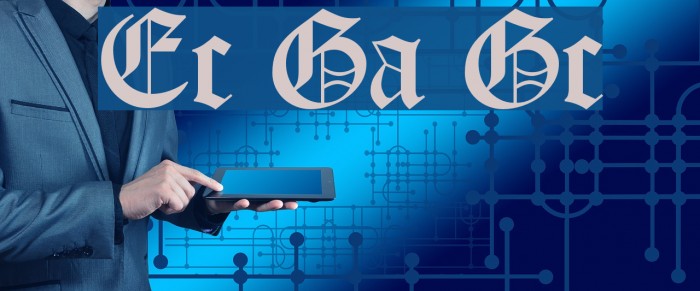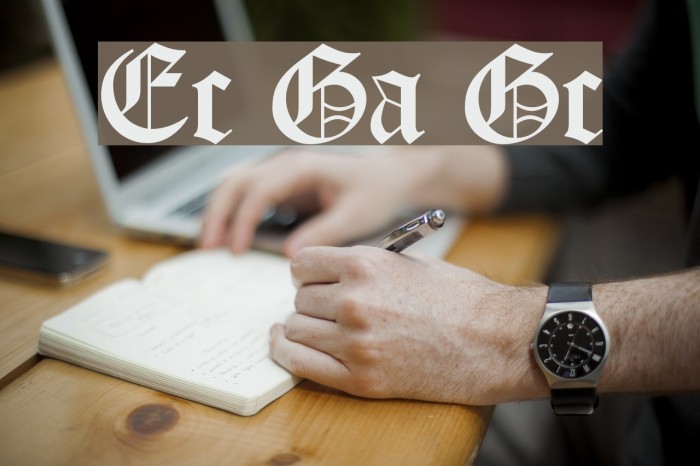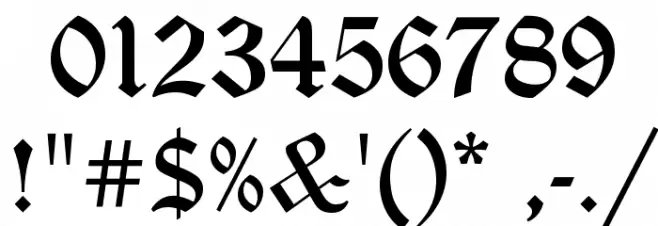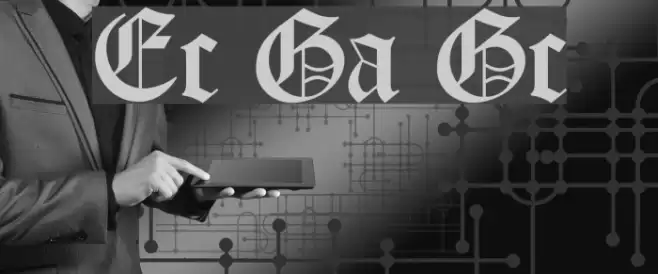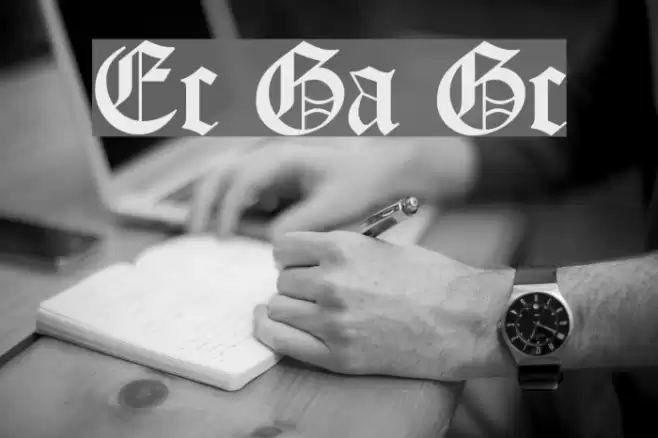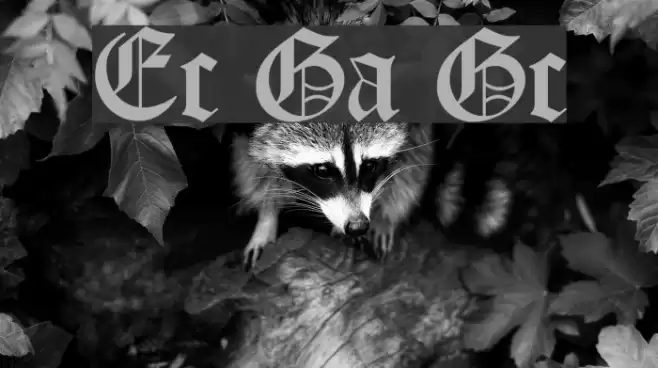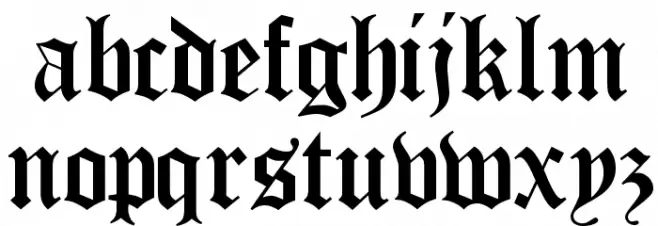
Encient German Gothic Font
This font embodies the traditional characteristics of Gothic script, featuring ornate and intricate letterforms with sharp, angular lines and decorative elements. The uppercase letters are particularly elaborate, with flourishes that extend beyond the baseline and cap height, giving a sense of historical elegance and complexity. The lowercase letters maintain a consistent style, with a balance between readability and decorative flair. The numerals are bold and distinct, matching the overall aesthetic of the script. Special characters are included, each designed to complement the font's Gothic style, making it suitable for a variety of creative applications.
A decorative Gothic script with intricate, angular letterforms.
- Proposed Projects: Ideal for historical documents, invitations, book covers, and branding that requires a vintage or medieval aesthetic.
- Overall Style: Vintage
- Use Case: Logos, Headlines, Decorative text